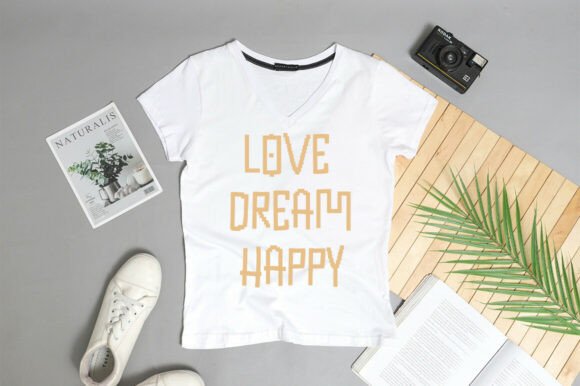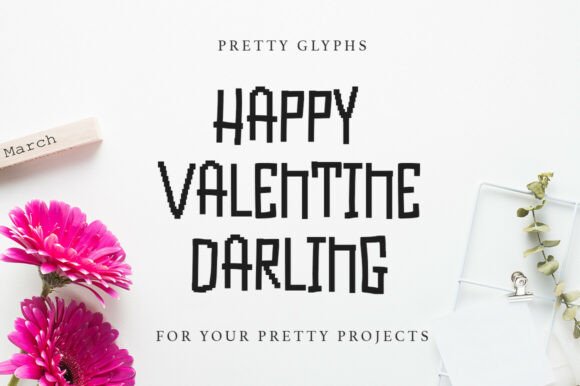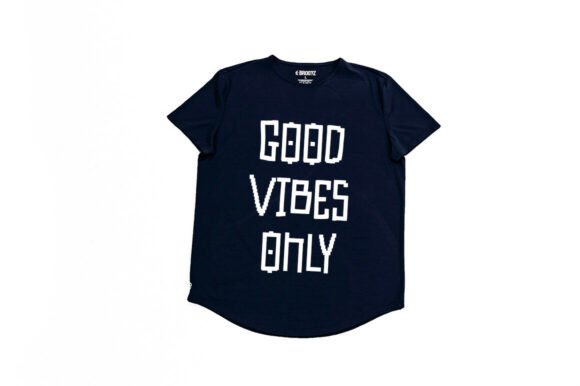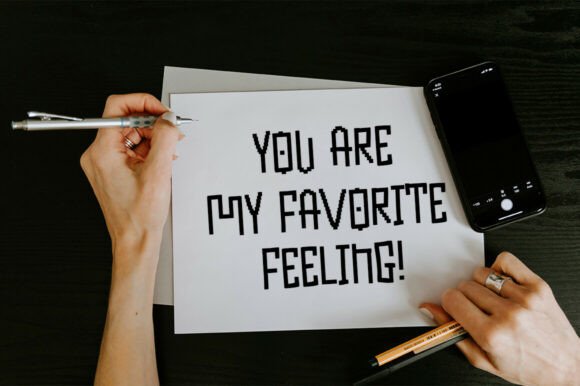
Introduction to Pixel Display Font
Remember the rush of excitement you felt when you first booted up an old computer or played a classic video game? The blocky, pixelated graphics that seemed to leap off the screen? That nostalgic charm is what makes the Pixel Display Font so captivating. This unique typeface combines the retro appeal of low-resolution digital graphics with the organic irregularity of hand-drawn lettering.
For designers, the Pixel Display Font is a valuable resource for adding a distinct digital-humanist edge to their creative projects. Its tall, condensed characters and visible “pixelated” steps along the edges create a playful, lo-fi personality that’s both retro and contemporary. Whether you’re working on a indie game title, tech-themed social media content, or streetwear branding, this font is sure to stand out.
Key Features of Pixel Display Font
- High-quality design resource for creative projects: Pixel Display Font is a unique and stylish font that can elevate any project.
- Pixel-perfect display: This font is designed to mimic the look of old-school pixel art, making it perfect for retro-themed projects or games.
- Perfect for pixel art and low-resolution graphics: Pixel Display Font is designed to work well with low-resolution graphics and pixel art, making it ideal for retro-themed projects.
Honest Review: Pixel Display Font
I recently came across the Pixel Display Font, a design resource that caught my attention. At first glance, I was drawn to its unique aesthetic and the fact that it’s a free download.
Here’s what works well for me:
- ✨ The font’s retro-inspired design makes it perfect for creative projects that require a nostalgic feel.
- ✨ The high quality of the font ensures that it looks great at various sizes and resolutions.
- ✨ The transparent background option makes it easy to use the font with different backgrounds and designs.
However, there are a few limitations I’d like to point out:
- ⚠️ The font’s limited character set may be a drawback for some users, particularly those who need to typeset long texts.
- ⚠️ The font’s pixelated design may not be suitable for projects that require a more modern or sleek look.
Overall, I’m impressed with the Pixel Display Font. While it may have some limitations, its unique design and high quality make it a valuable resource for designers working on creative projects. I’d definitely recommend it to anyone looking for a free download with a lot of character.
Tips for Getting the Most Out of Pixel Display Font
For high quality results, use the Pixel Display Font on a transparent background to create a clean and modern look. You can also experiment with different font sizes and styles to add visual interest to your design.